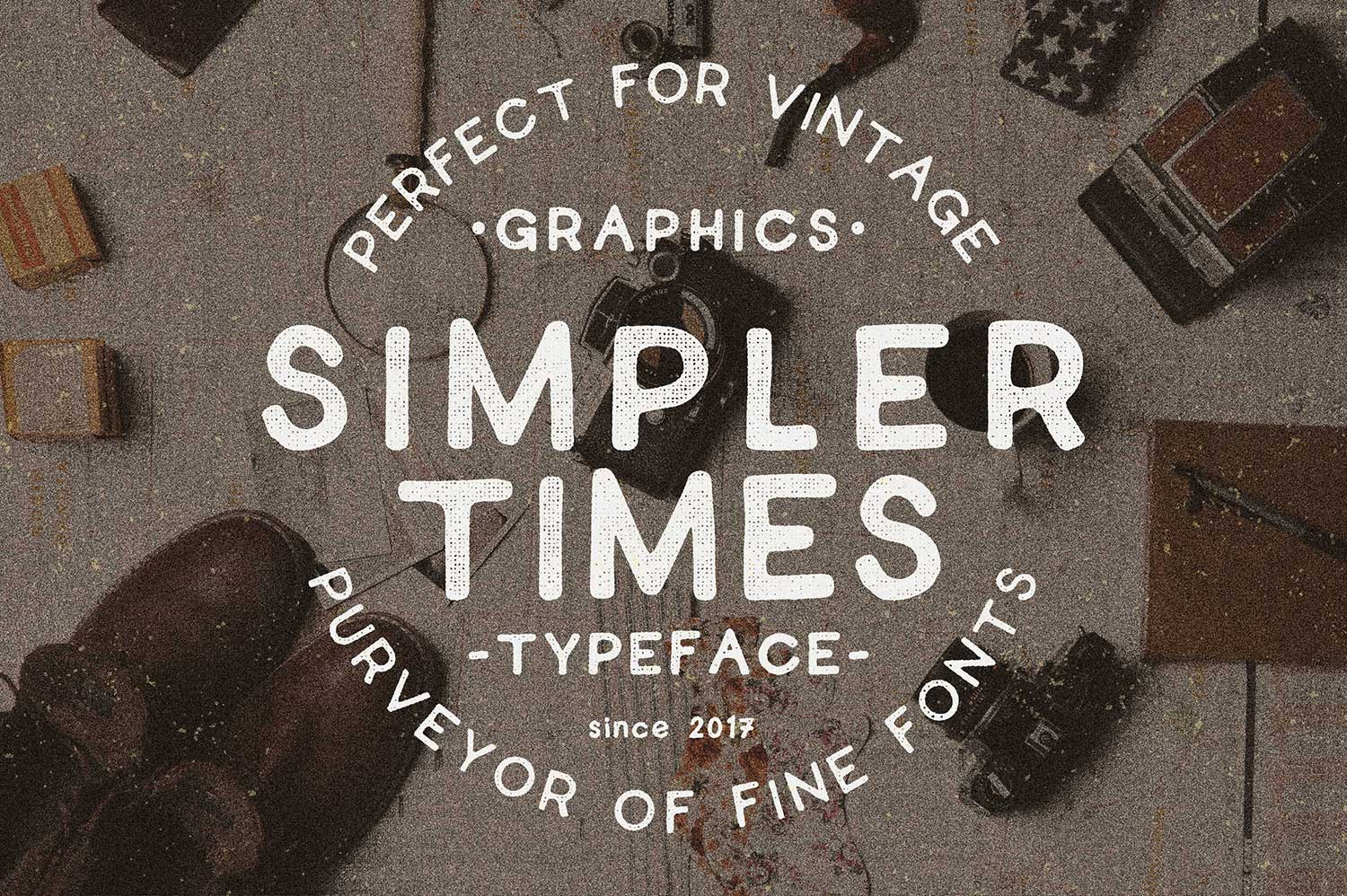
Simpler Times Typeface
Simpler times is versatile new typeface from Oban.co
Hand drawn letter forms create an authentic and simple aesthetic that fits well into any nostalgic design.
Bold style and special characters included.